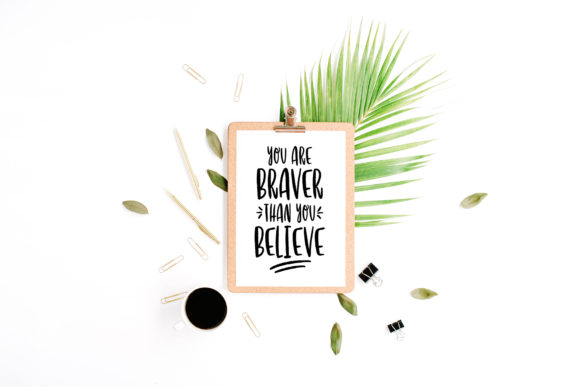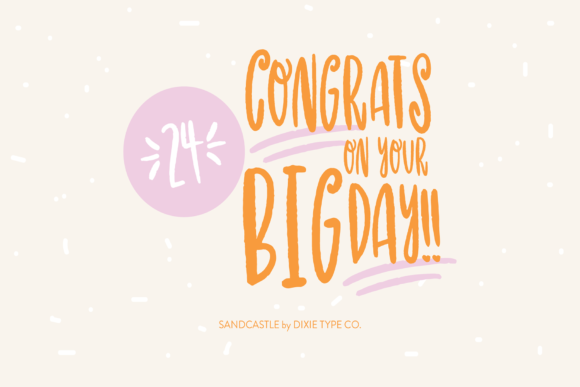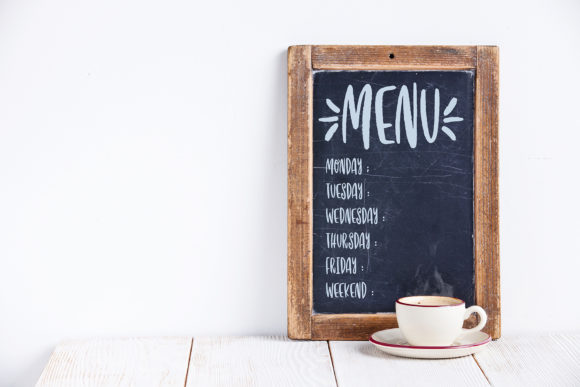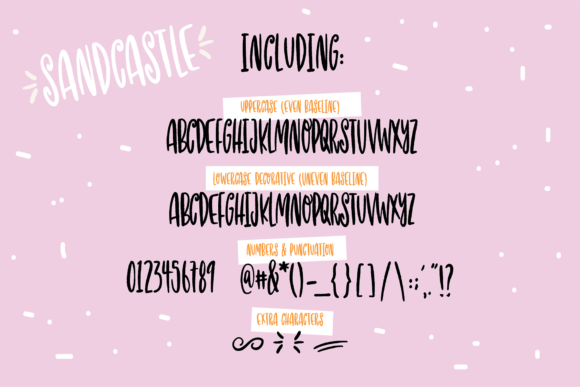
Sandcastle Font
About Sandcastle Font
Sandcastle is a cute and casual handwritten font with an incredibly friendly feel. Whether you’re looking for fonts for Instagram or calligraphy scripts for DIY projects, Sandcastle will turn any creative idea into a true piece of art!